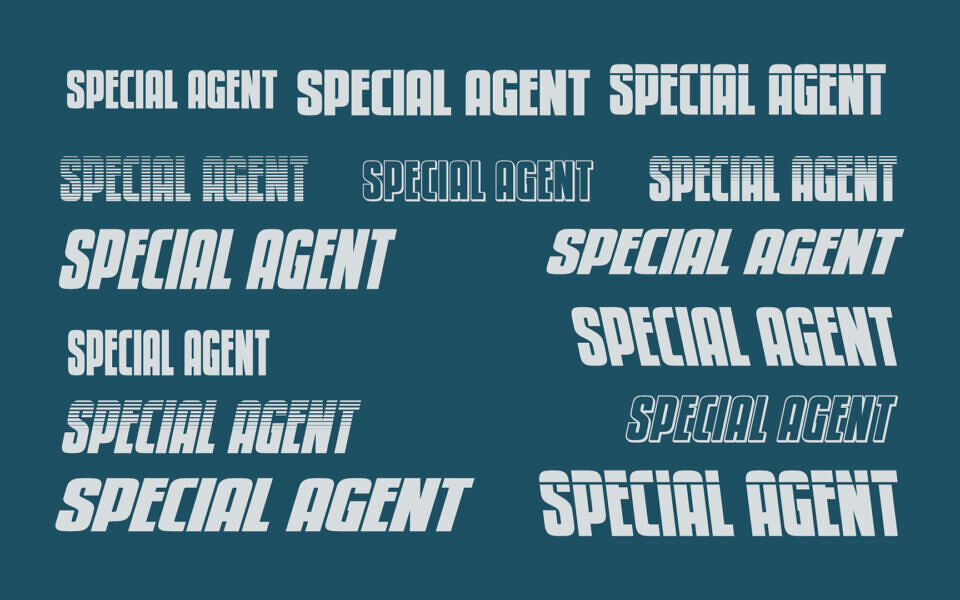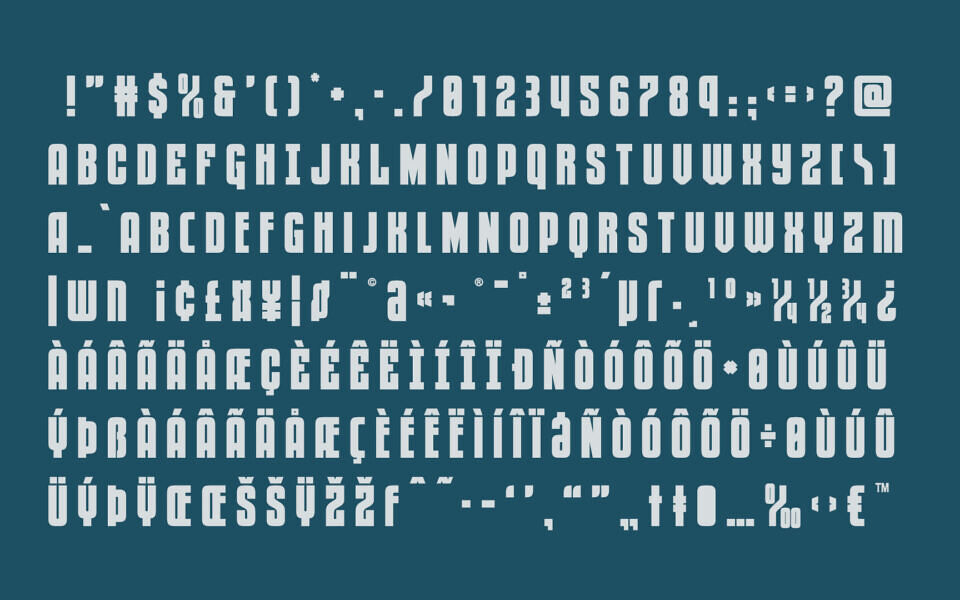
Special Agent Font Family
Special Agent is a bold sci-fi display font with a futuristic, high-impact style inspired by action movies, secret agents, and cyberpunk aesthetics. Its sharp geometric shapes and wide variety of included styles make it perfect for logos, gaming titles, posters, tech branding, and cinematic designs. Created by Iconian Fonts, this typeface delivers a sleek and powerful look that instantly grabs attention.
Styles available: Regular, Italic, Semi-Italic, Super-Italic, Leftalic, Semi-Leftalic, Condensed, Condensed Italic, Condensed Semi-Italic, Expanded, Expanded Italic, Expanded Semi-Italic, Xtra-Expanded, Xtra-Expanded Italic, Xtra-Expanded Super-Italic, Outline, Outline Italic, Outline Semi-Italic, 3D, 3D Italic, 3D Semi-Italic, Laser, Laser Italic, Laser Semi-Italic, Laser Super-Italic, Laser Leftalic, Laser Semi-Leftalic, Gradient, Gradient Italic, Halftone, Halftone Italic.
Designed by: Iconian Fonts